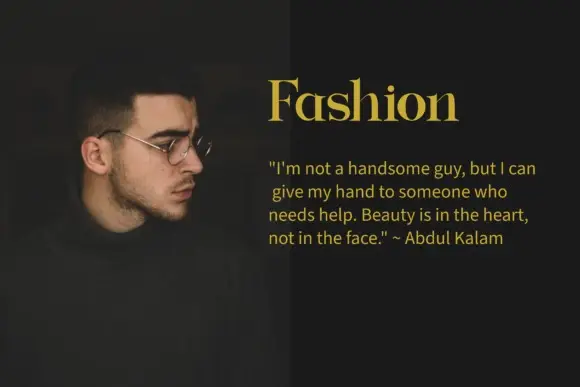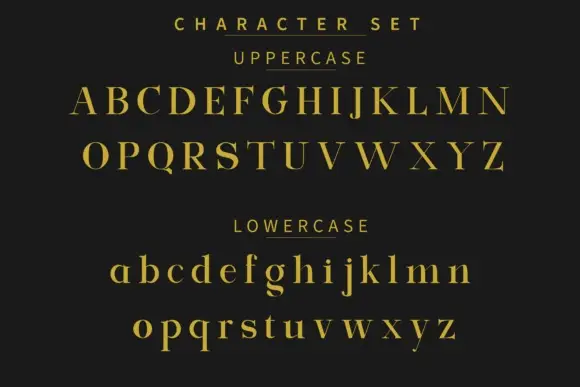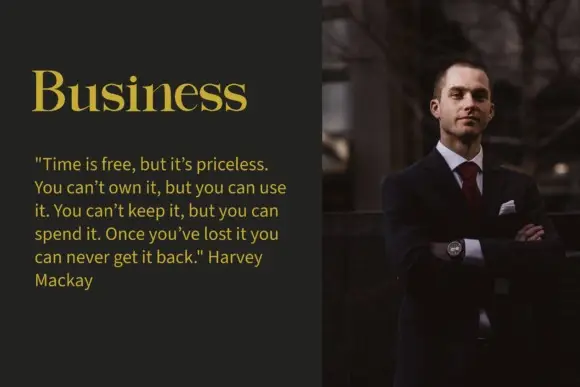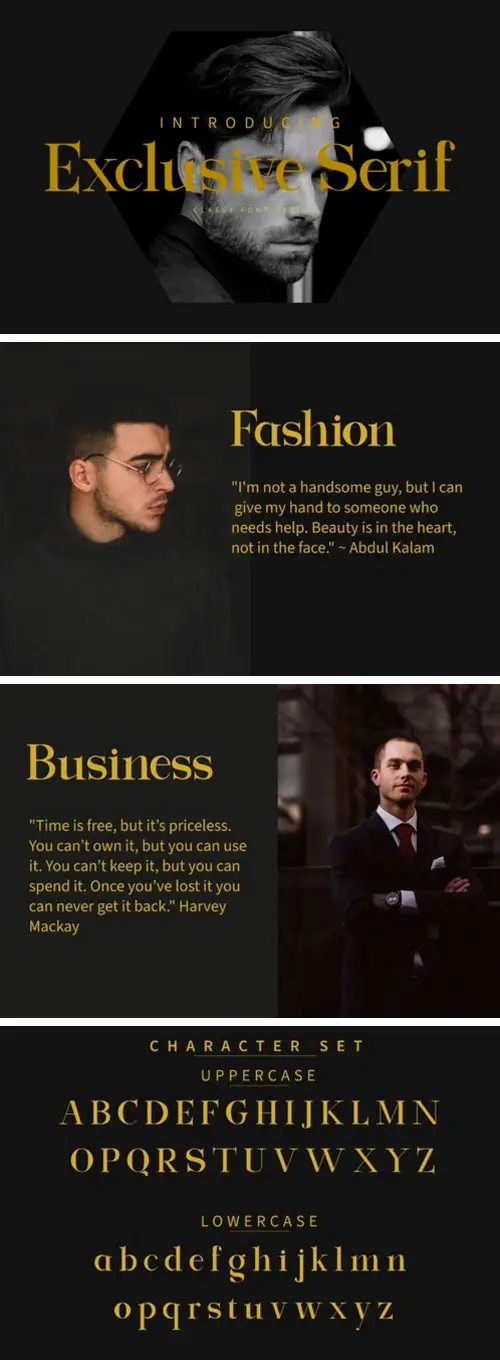
Exclusive Serif Font
The Exclusive Serif Font is a beautifully crafted typeface that combines elegance with readability. Perfect for a variety of design projects, this font features classic serif styling that adds a touch of sophistication to your work.
• Multiple weights for versatile use
• Stylish uppercase and lowercase letters
• Numerous ligatures and special characters
Ideal for branding, logos, print materials, and web design, the Exclusive Serif Font can elevate your projects with its timeless appeal.